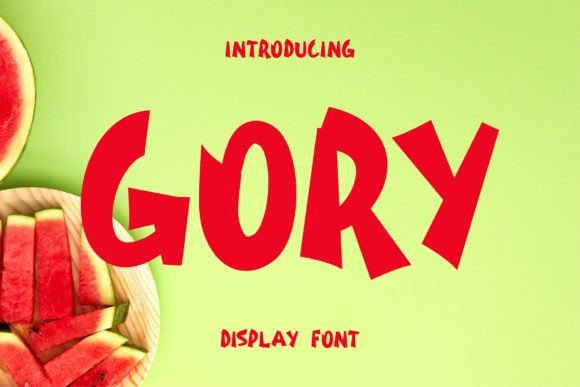
Introducing Gory Font, the epitome of modern and exclusive display typography! Immerse yourself in a world of design possibilities with this carefully crafted font, where each letter is meticulously designed with sleek lines and intricate details. Witness the fusion of boldness and sophistication that sets Gory apart from the ordinary.
Unlock your creative potential and craft designs that demand attention and make a lasting impression. Gory is the perfect companion for luxury branding, high-end product packaging, fashion illustrations, and any project seeking a distinct and memorable visual identity. Its versatility extends to artistic poster designs, captivating magazine layouts, and eye-catching social media graphics.
Express your individuality and stand out from the crowd with Gory. Let your designs exude confidence and elegance, leaving a lasting impact on your audience. Dive into a world of creative freedom and elevate your projects to new heights with Gory.
To further enhance your design experience, Gory comes fully PUA encoded, granting you effortless access to a treasure trove of delightful glyphs and swashes. Unleash your creativity and explore endless possibilities, crafting designs that are both visually stunning and captivating.
Don't settle for ordinary fonts. Embrace the extraordinary with Gory and see your designs transform into works of art. Experience the power of typography and elevate your projects to new heights. Download Gory today and embark on a journey of design excellence!